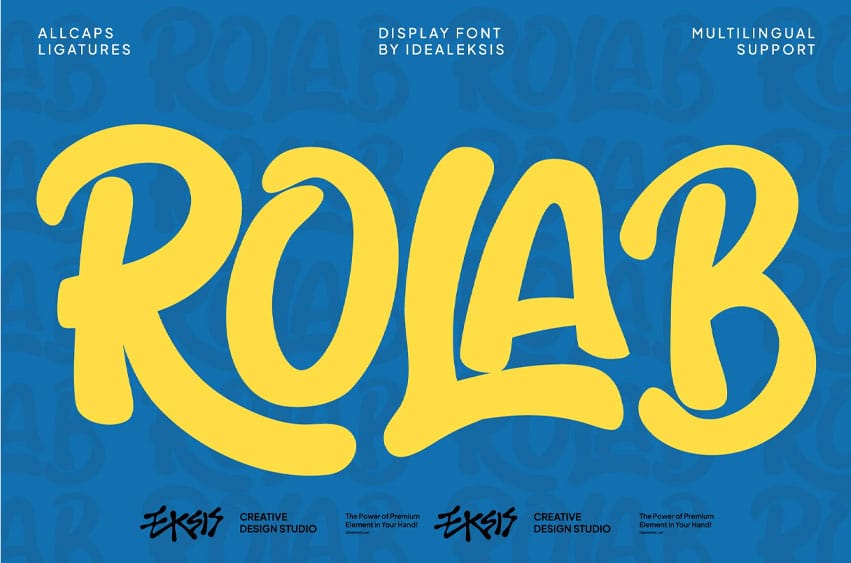
Rolab Font is a high-impact display font characterized by its thick, rounded strokes and organic, hand-drawn aesthetic. The letterforms exhibit a playful energy with soft terminals and a consistent heavy weight that ensures maximum visibility.
Its fluid curves and interconnected ligatures create a rhythmic flow, making it ideal for branding, posters, and social media graphics where a bold, friendly, and modern urban vibe is required. The design avoids sharp angles, favoring a soft, approachable look that commands attention through its substantial visual presence and unique character shapes.
- Alternates & Ligature
Perfect for
- Bakery and café branding
- Food and beverage logos
- Restaurant menus and signage
- Coffee shop and donut shop designs
- Food packaging and labels
- Social media food promotions
- Kitchen-themed posters and prints
- Culinary blogs and recipe graphics